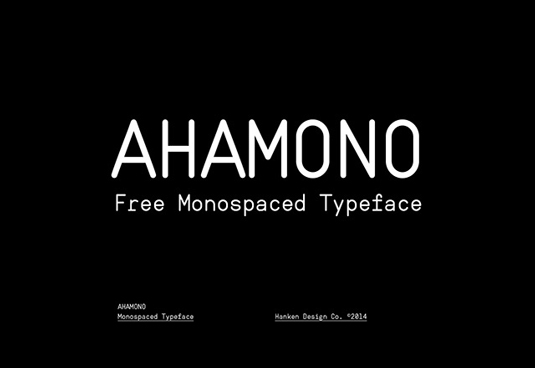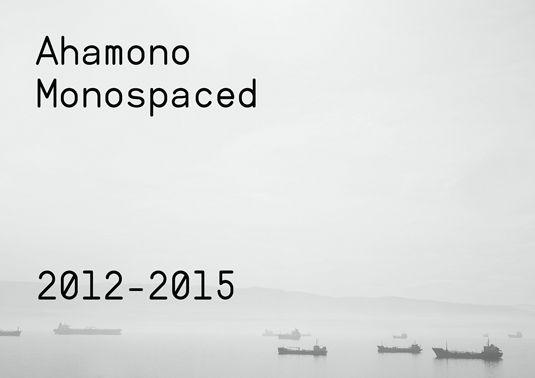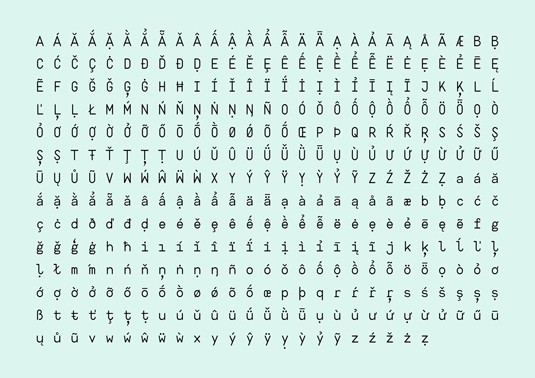
Font of the day: Ahamono
Every day we showcase the best fonts on the web. Today it's Ahamono by Alfredo Marco Pradil, which is free to download.
Ahamono by Alfredo Marco Pradil
Looking for a new font but on a budget? This gorgeous free monospaced typeface Ahamono from digital craftsman Alfredo Marco Pradil could be just the solution.